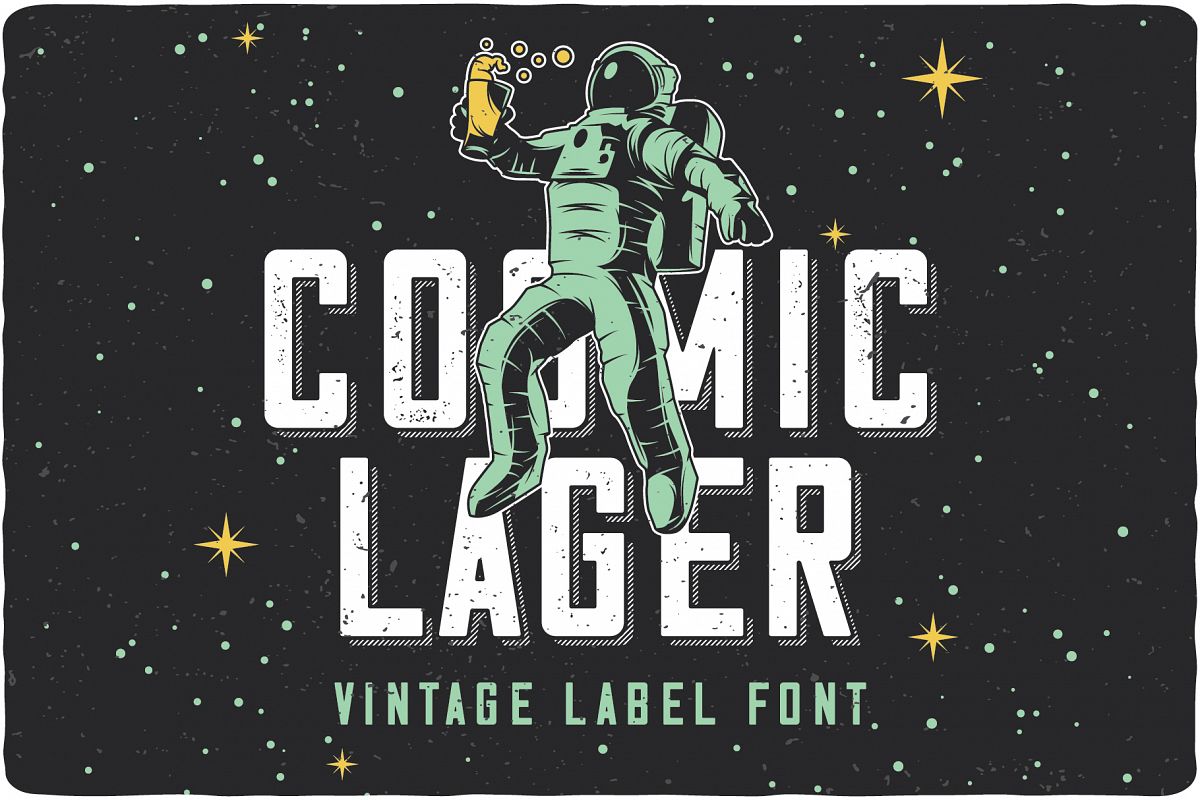
Cosmic Lager with bonus example image 1
Introducing a vintage look label font named "Cosmic Lager".Typeface includes four styles for clean version and four styles for rough version, for sample look at 4th preview. This font will good viewed on any retro design like poster, t-shirt, label, logo etc.Complect: